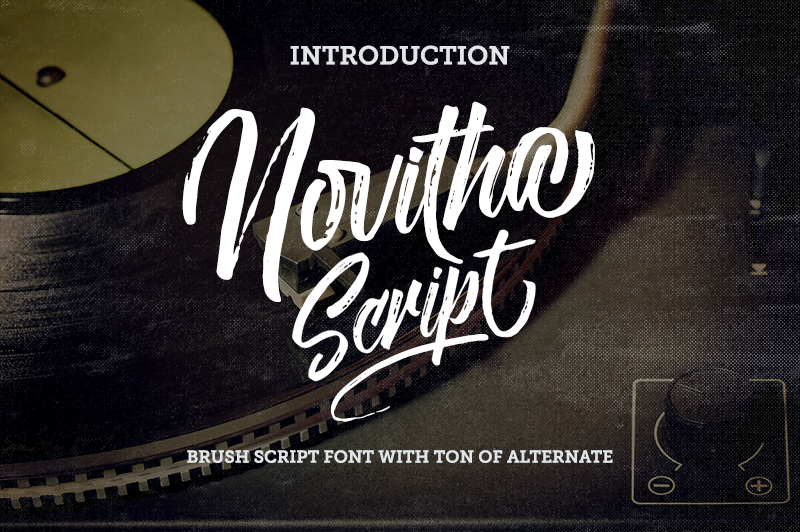
Novitha Script Font Free Download
Novitha Script Font is perfect for elegant wedding invitations, feminine branding projects, beauty salon logos, fashion boutique marketing, romantic greeting cards, luxury product packaging, signature-style logos, sophisticated social media graphics, personal stationery designs, and refined editorial content that requires graceful calligraphic elegance.
This font is exciting because it features beautifully flowing script letterforms with natural handwritten charm that feels both sophisticated and approachable. The smooth connections and elegant rhythm create a sense of effortless grace, making every design feel more personal, luxurious, and visually captivating while maintaining excellent readability across various applications.
The Novitha Script Font family typically includes uppercase and lowercase characters, numerals, punctuation marks, ligatures, stylistic alternates, swashes, and decorative elements that allow designers to customize their compositions with artistic flair and personalized touches.
Whether you're crafting elegant brand identities for creative businesses, designing romantic wedding materials, or developing premium marketing collateral that speaks to sophisticated audiences, Novitha Script Font Free Download provides the perfect typographic expression of refinement and style. Its exquisite flowing character and feminine elegance make every project feel more polished and professionally executed, ensuring your designs beautifully convey grace, sophistication, and timeless beauty that captures attention and creates lasting impressions across all creative endeavors.